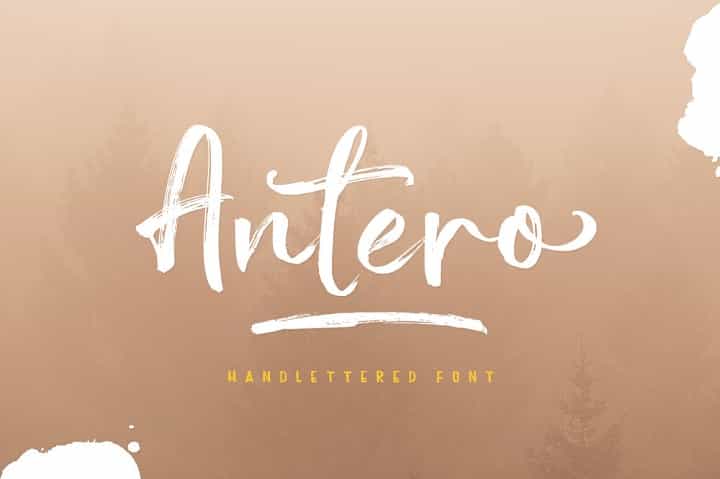
Antero is a hand-drawn brush typeface created by hand. It includes both lowercase and uppercase characters. It also has a a large set of punctuation glyphs numerals, cyrillic characters and a an alternative set of Latin characters and the ligatures (latin and Cyrillic) and support for multilingual languages. It is ideal for logos, packaging, t-shirt design, handwritten quotations, etc.